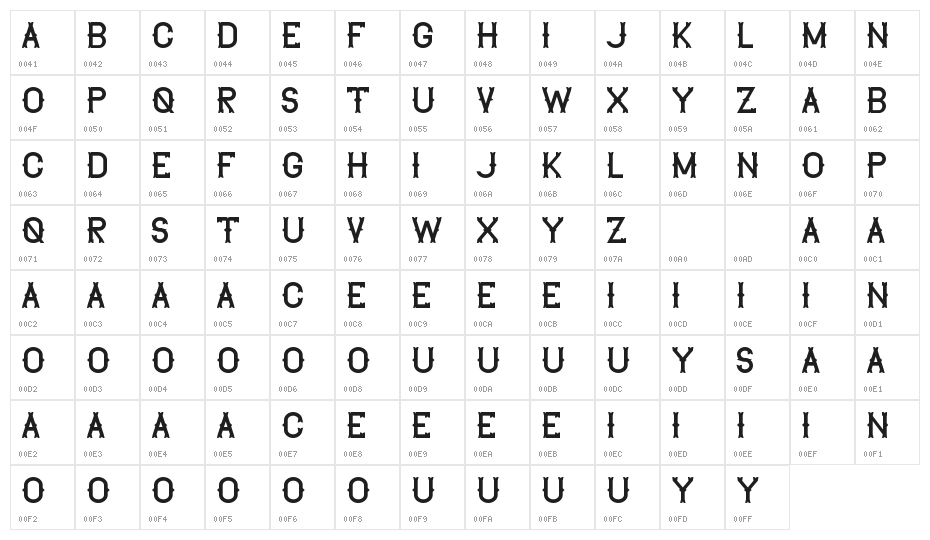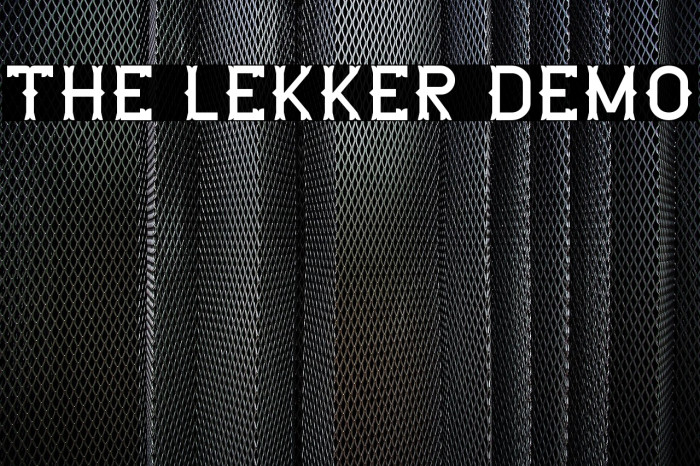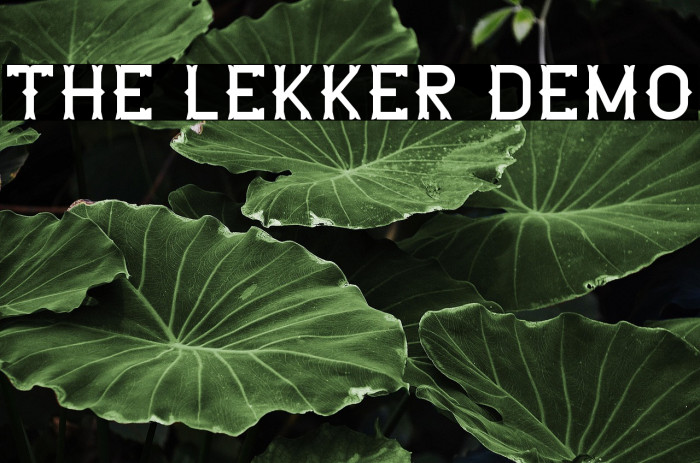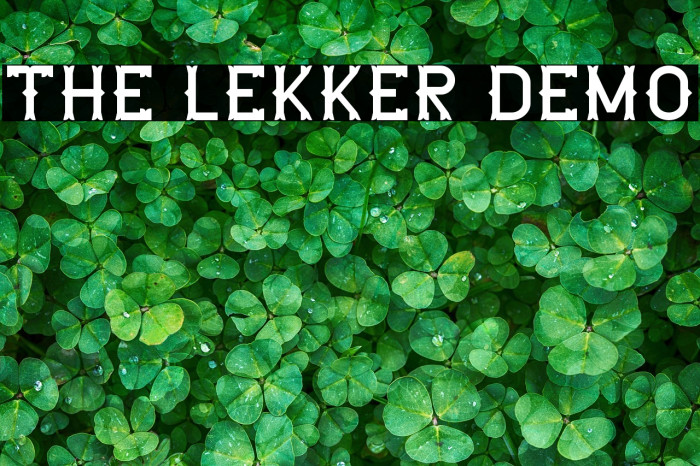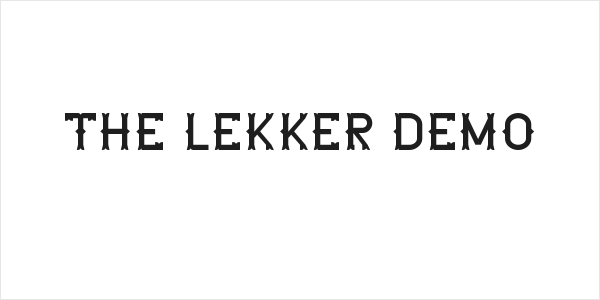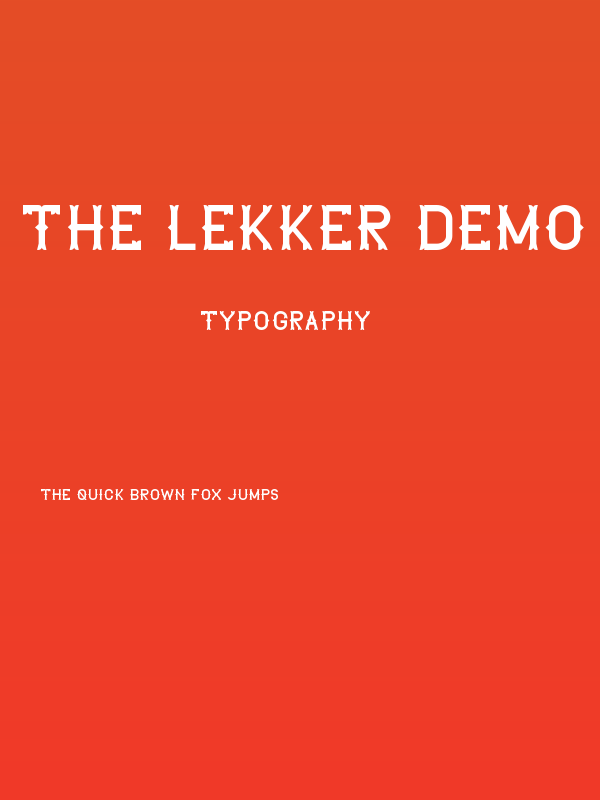
The Lekker DEMO Font
The Lekker DEMO Description
This font features a bold and striking design with a distinct decorative flair. Each character is crafted with a unique combination of sharp angles and rounded elements, creating a visually intriguing contrast. The uppercase letters exhibit a strong presence, ideal for making a statement. The font's style is reminiscent of vintage signage, yet it maintains a modern edge. Its boldness and decorative elements make it suitable for projects that require a standout typographic choice, such as branding, posters, or headlines. The font's intricate design details add a layer of sophistication and creativity, making it a versatile choice for various design applications.
Overall StyleVintage, Modern
Proposed ProjectsBranding, posters, headlines, signage, and creative design projects.